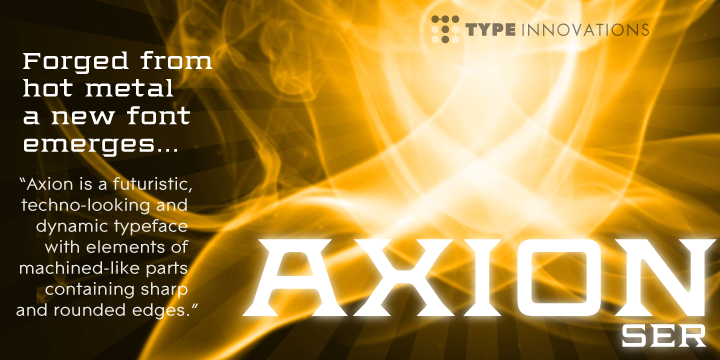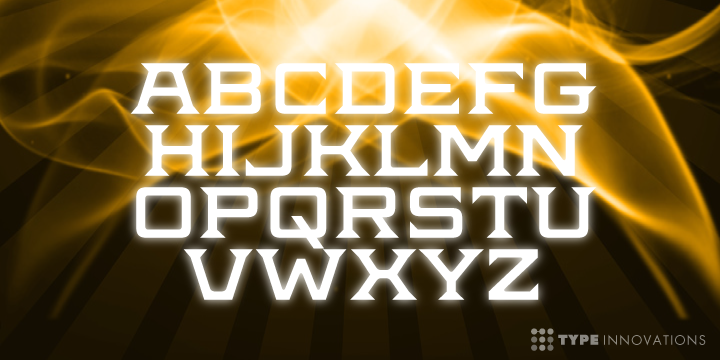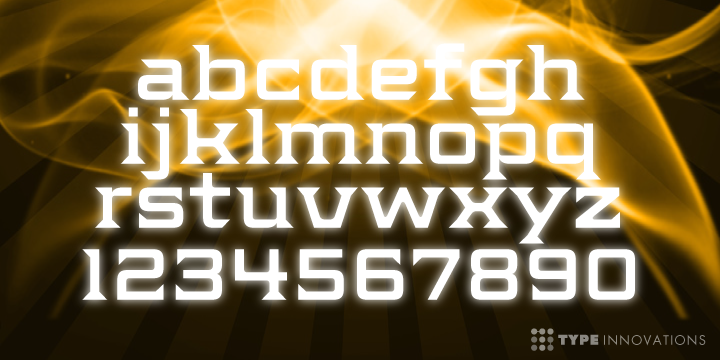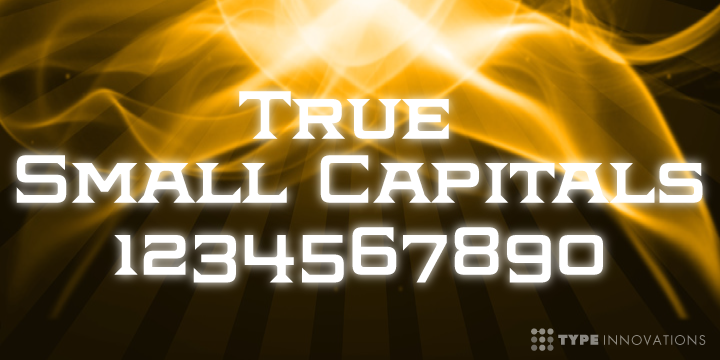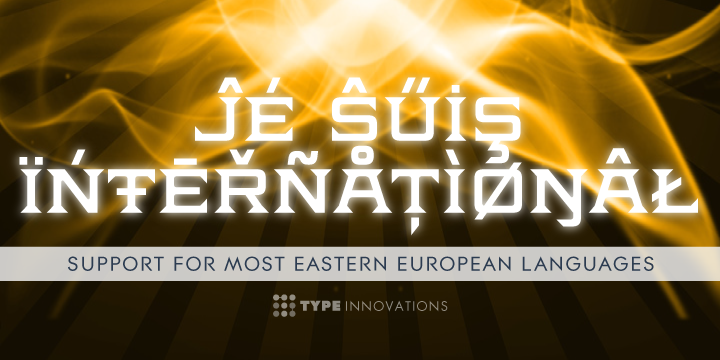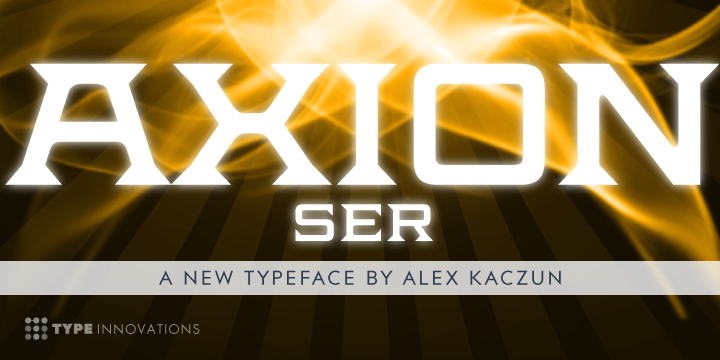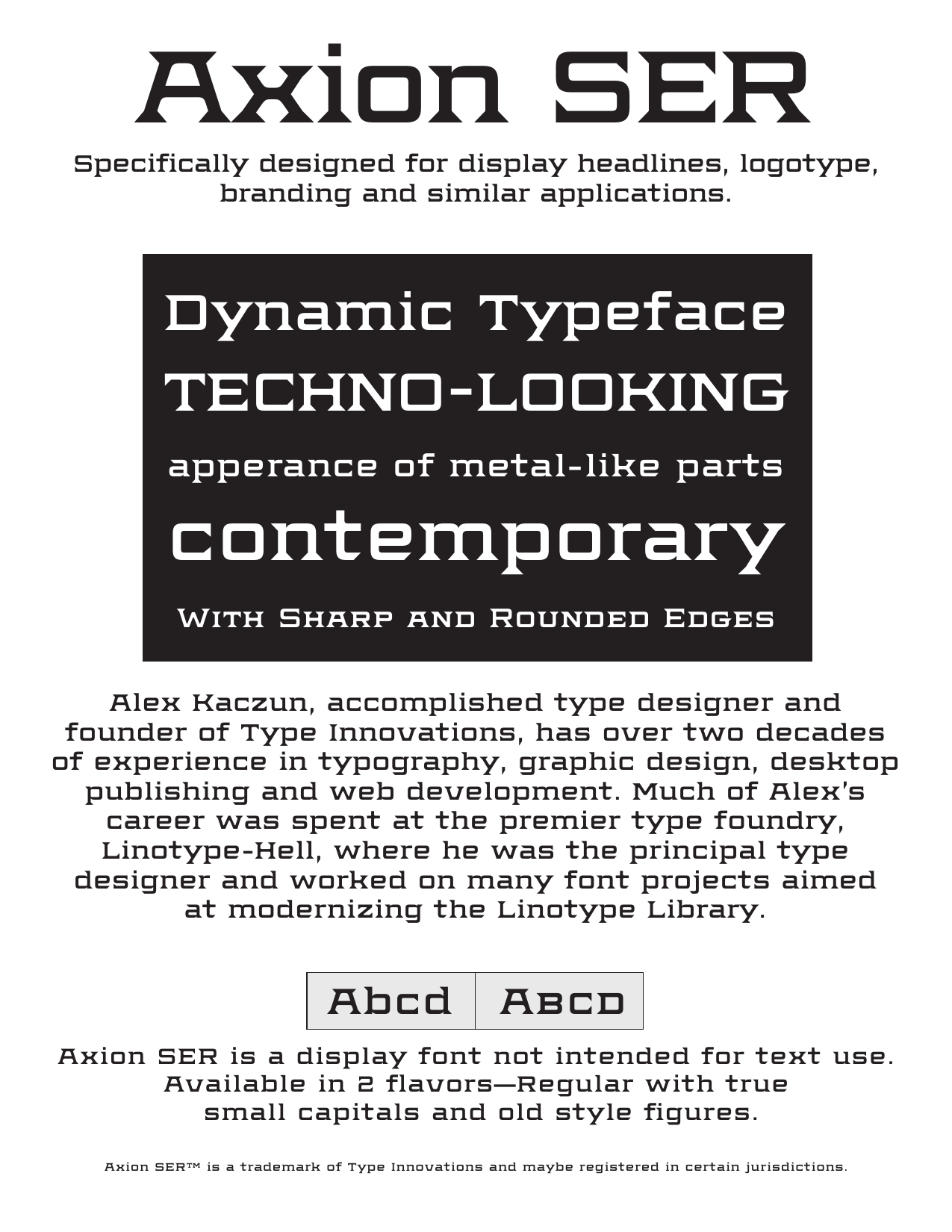
Axion SER Collection
Axion SER
Axion SER is an original design by Alex Kaczun. Axion SER is a serif style variation based on his original Axion typeface family of fonts. It is a display font not intended for text use. It was designed specifically for display headlines, logotype, branding and similar applications.
The entire font has an original look which is strong, dynamic, machine generated and can be widely used in publications and advertising. Axion SER is a futuristic, techno-looking and expressive typeface with an appearance of machined parts with sharp and rounded edges.
This attractive display comes in roman with lower case and lining figures.The font is also available with true small capitals and old style figures. The large Pro font character set supports most Central European and many Eastern European languages.